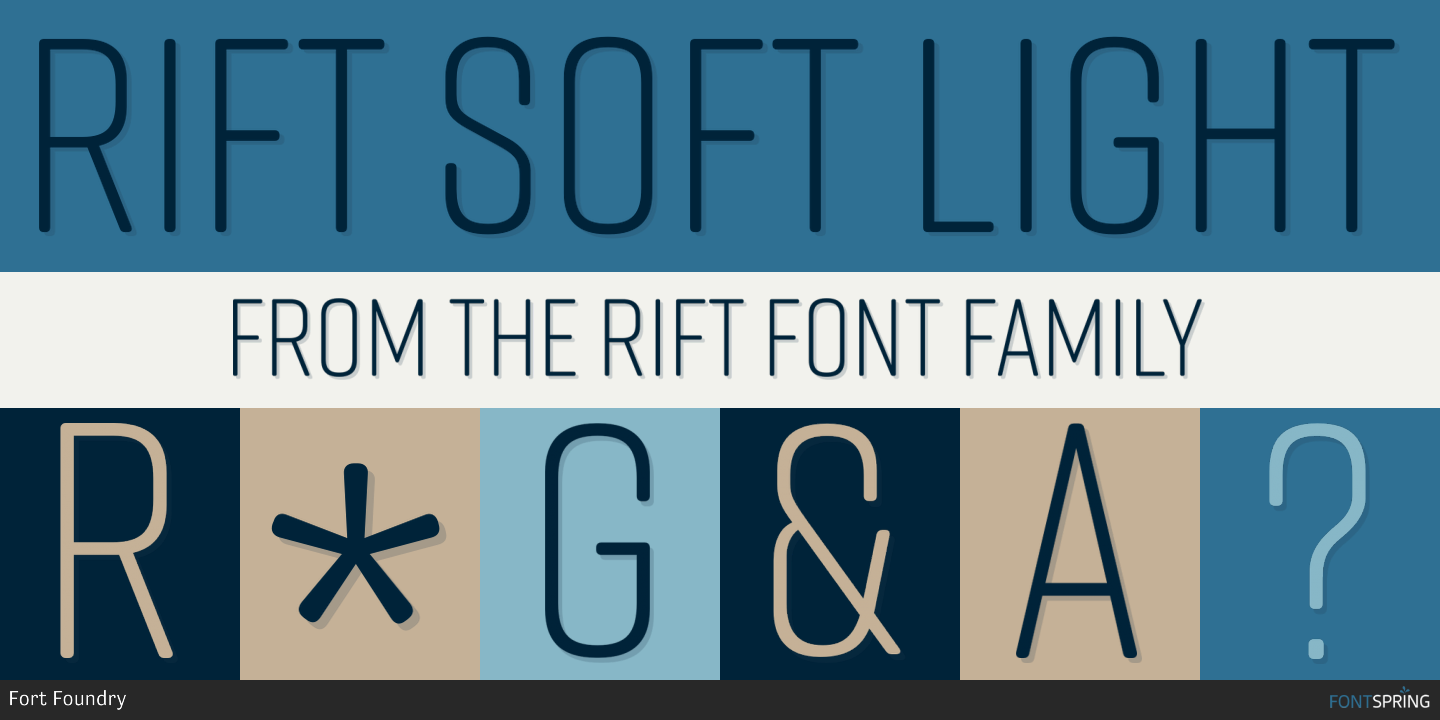
Rift Soft Font . Web rift soft font family designed by mattox shuler has a total of 10 different styles. Learn more about its features, similar fonts, and font pairing.
Web rift comes in five weights with corresponding italics and soft styles. The family was further given opentype features to allow designers more flexibility and control. Web rift comes in five weights with corresponding italics and soft styles.
Web rift soft medium is the perfect font for all your fun designs. The rift soft medium font was designed by mattox. Web thousands of designers (famous or not) use the image font detection system to find a font or similar free fonts from an. Stylistic alternates give rift a more playful vibe that still retains its earnestness.
Rift Soft Font - A sans serif typeface with 10 styles, available from adobe fonts for sync. The rift soft medium font was designed by mattox. Web buy & download rift soft medium, a font by fort foundry. Stylistic alternates give rift a more playful vibe that still retains its earnestness. Web rift comes in five weights with corresponding italics and soft styles.
Rift Soft Font - The rift soft medium font was designed by mattox. Web rift comes in five weights with corresponding italics and soft styles. Web buy & download rift soft medium, a font by fort foundry. A sans serif typeface with 10 styles, available from adobe fonts for sync. Web explore rift soft designed by mattox shuler at adobe fonts.
Rift Soft Font - Web buy & download rift soft medium, a font by fort foundry. Stylistic alternates give rift a more playful vibe that still retains its earnestness. The rift soft medium font was designed by mattox. Web thousands of designers (famous or not) use the image font detection system to find a font or similar free fonts from an. The family was.
Rift Soft Font - A sans serif typeface with 10 styles, available from adobe fonts for sync. Web rift comes in five weights with corresponding italics and soft styles. Web rift comes in five weights with corresponding italics and soft styles. Learn more about its features, similar fonts, and font pairing. Web rift soft font family designed by mattox shuler has a total of.
Rift Soft Font - Web thousands of designers (famous or not) use the image font detection system to find a font or similar free fonts from an. You can download the rift soft font to your computer. Web rift comes in five weights with corresponding italics and soft styles. Stylistic alternates give rift a more playful vibe that still retains its earnestness. The rift.
Rift Soft Font - Web buy & download rift soft medium, a font by fort foundry. The family was further given opentype features to allow designers more flexibility and control. The rift soft medium font was designed by mattox. Try it now or buy it at. You can download the rift soft font to your computer.
Rift Soft Font - Web buy & download rift soft medium, a font by fort foundry. Web explore rift soft designed by mattox shuler at adobe fonts. The rift soft medium font was designed by mattox. Web rift comes in five weights with corresponding italics and soft styles. Stylistic alternates give rift a more playful vibe that still retains its earnestness.
Rift Soft Font - Web rift comes in five weights with corresponding italics and soft styles. Web rift soft font family designed by mattox shuler has a total of 10 different styles. Web rift comes in five weights with corresponding italics and soft styles. Stylistic alternates give rift a more playful vibe that still retains its earnestness. The rift soft medium font was designed.
Rift Soft Font - Stylistic alternates give rift a more playful vibe that still retains its earnestness. A sans serif typeface with 10 styles, available from adobe fonts for sync. Web explore rift soft designed by mattox shuler at adobe fonts. Web rift soft font family designed by mattox shuler has a total of 10 different styles. Try it now or buy it at.
Rift Soft Font - The family was further given opentype features to allow designers more flexibility and control. Web buy & download rift soft medium, a font by fort foundry. Web rift soft font family designed by mattox shuler has a total of 10 different styles. Web rift soft medium is the perfect font for all your fun designs. Try it now or buy.
Rift Soft Font - Stylistic alternates give rift a more playful vibe that still retains its earnestness. Web rift comes in five weights with corresponding italics and soft styles. Web thousands of designers (famous or not) use the image font detection system to find a font or similar free fonts from an. Learn more about its features, similar fonts, and font pairing. Try it.
Rift Soft Font - Try it now or buy it at. A sans serif typeface with 10 styles, available from adobe fonts for sync. The family was further given opentype features to allow designers more flexibility and control. Web rift soft medium is the perfect font for all your fun designs. Web rift comes in five weights with corresponding italics and soft styles.
Rift Soft Font - A sans serif typeface with 10 styles, available from adobe fonts for sync. Web rift comes in five weights with corresponding italics and soft styles. Try it now or buy it at. The family was further given opentype features to allow designers more flexibility and control. Web thousands of designers (famous or not) use the image font detection system to.